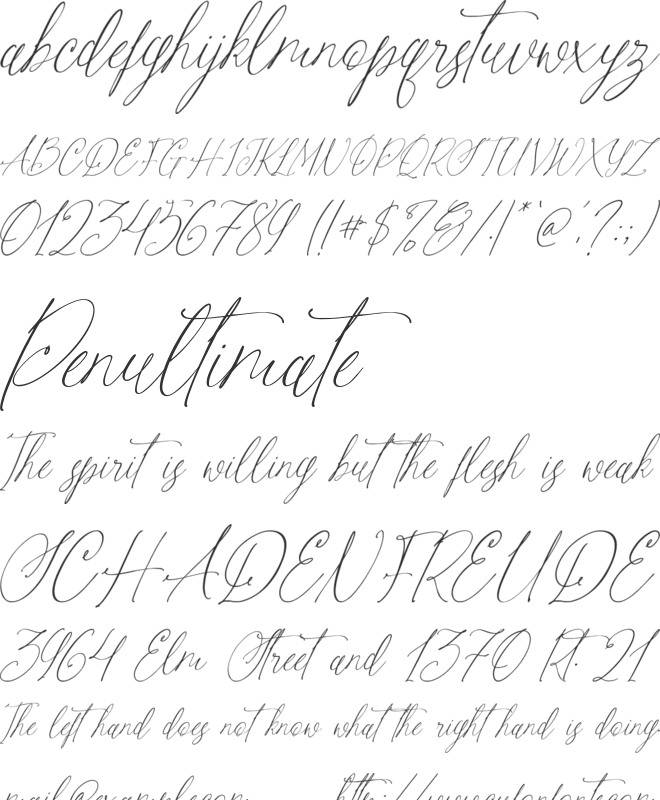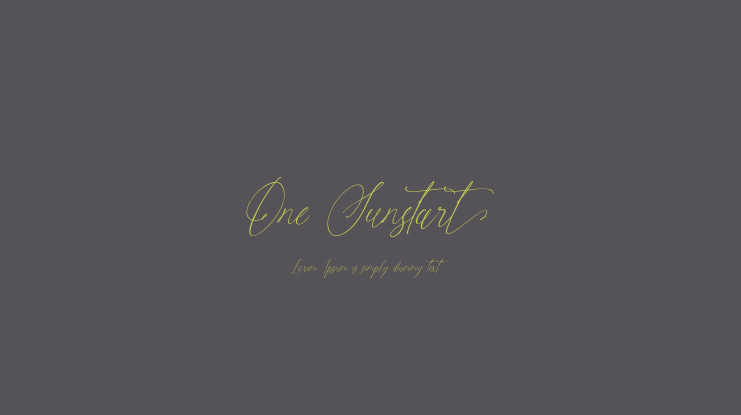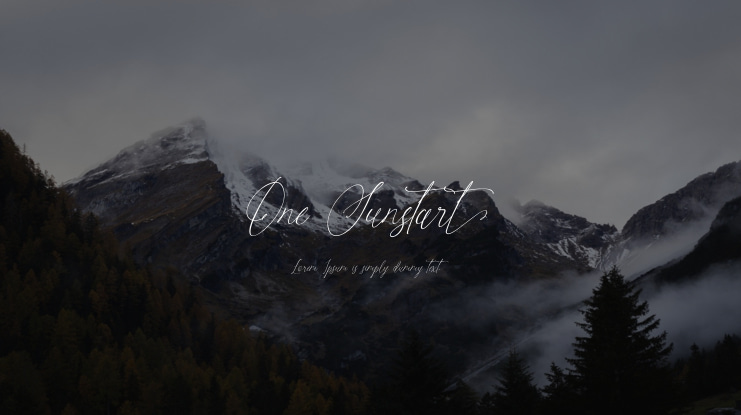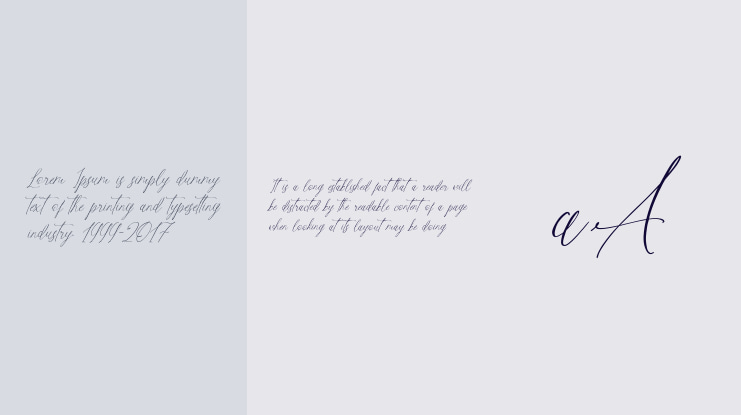
One Sunstart Font
One Sunstart Script is the perfect combination of sophistication and simplicity.
Refined, Distinct, Delicate, Chic, Expressive, Exquisite, Memorable, High-quality, Intriguing, Romantic, Energetic, Graceful, Bold, Uniquely designed, Graceful curves, Eye-pleasing, High-class, Impressive,